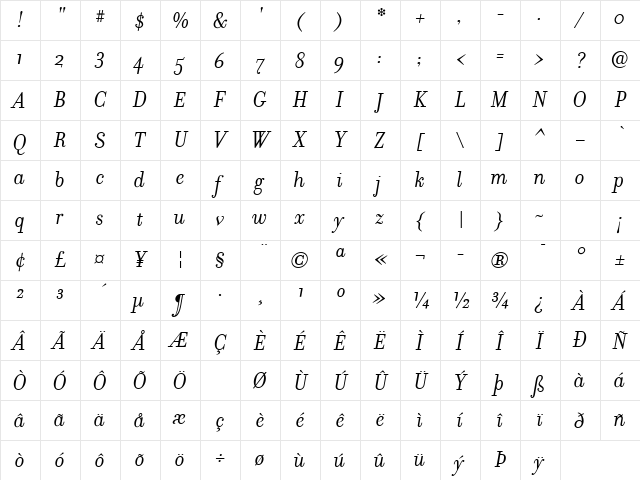
Filosofia is a composed and adaptable typeface that performs quietly and consistently across a wide range of design contexts. The slanted form adds forward momentum and visual energy.
Who designed the Filosofia Medium Italic font?